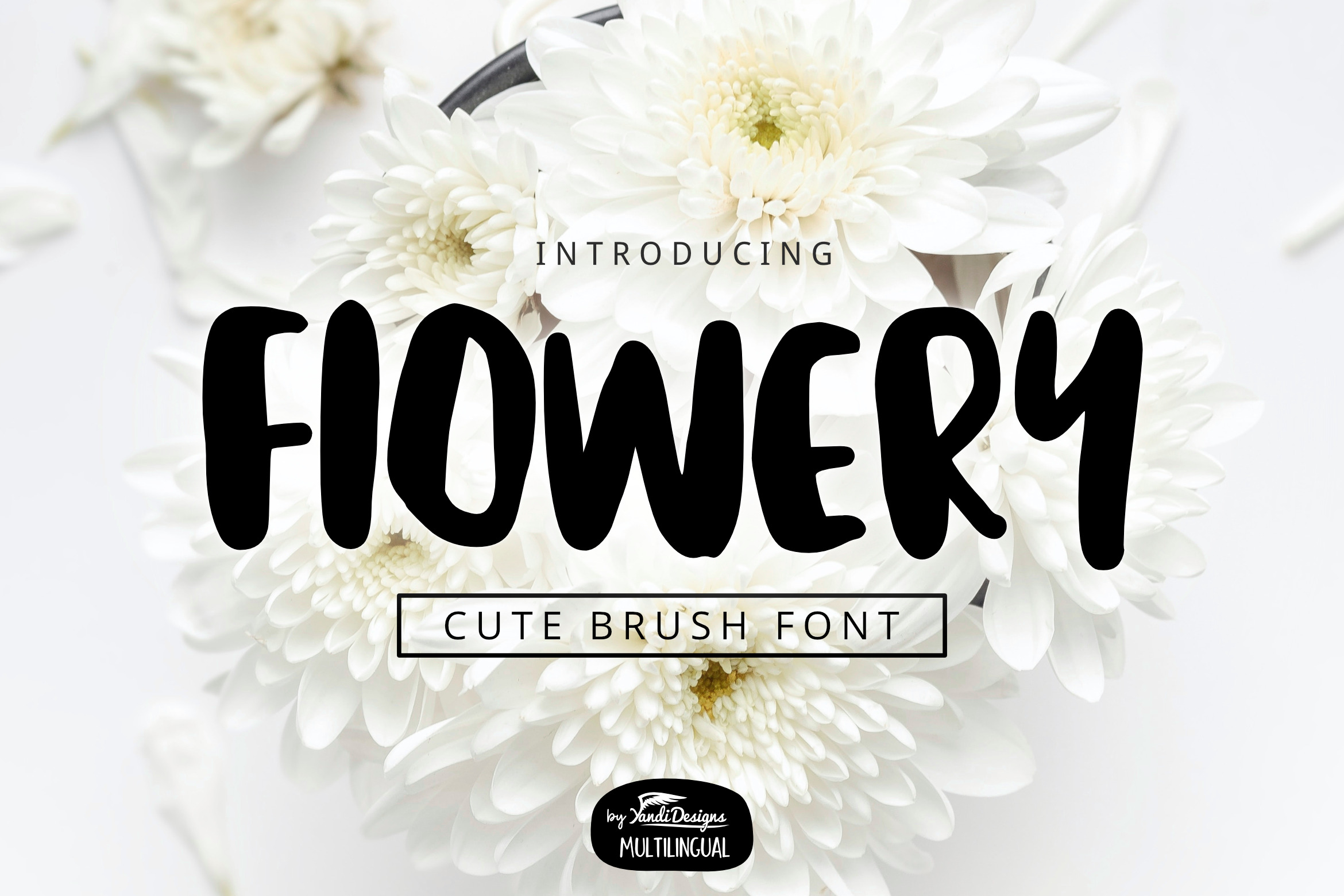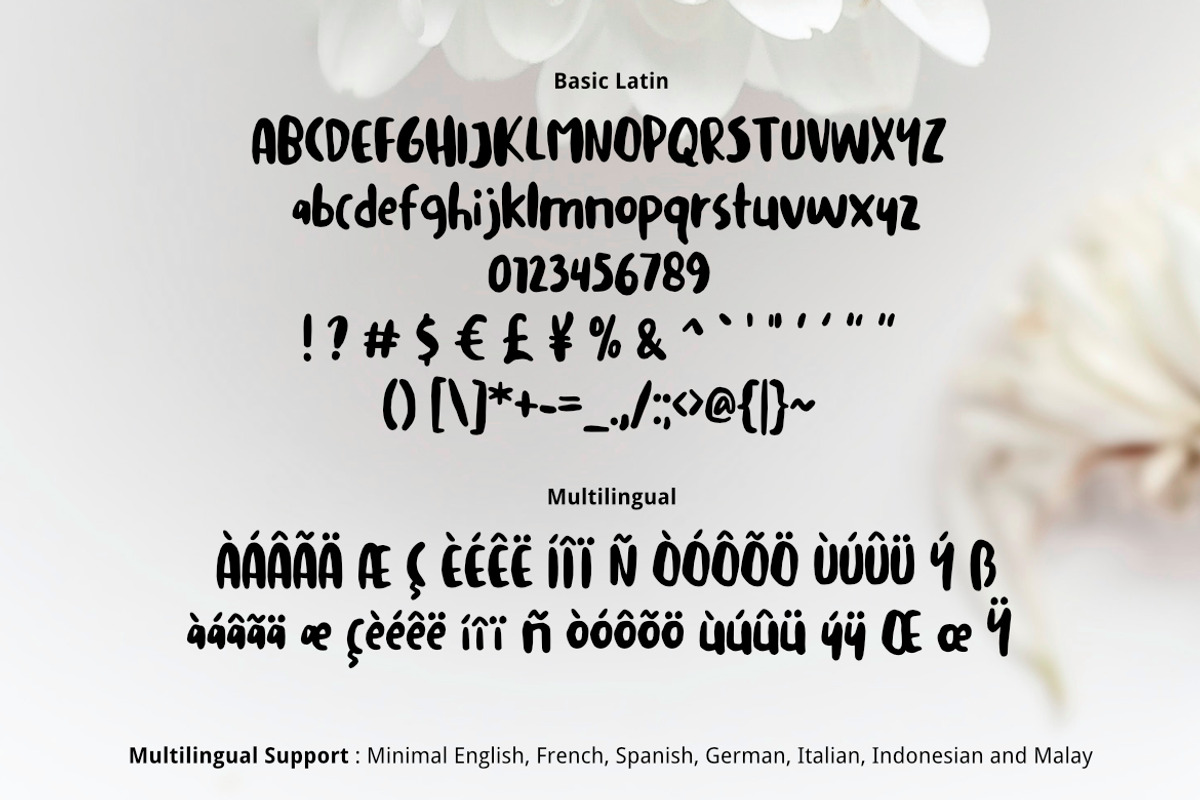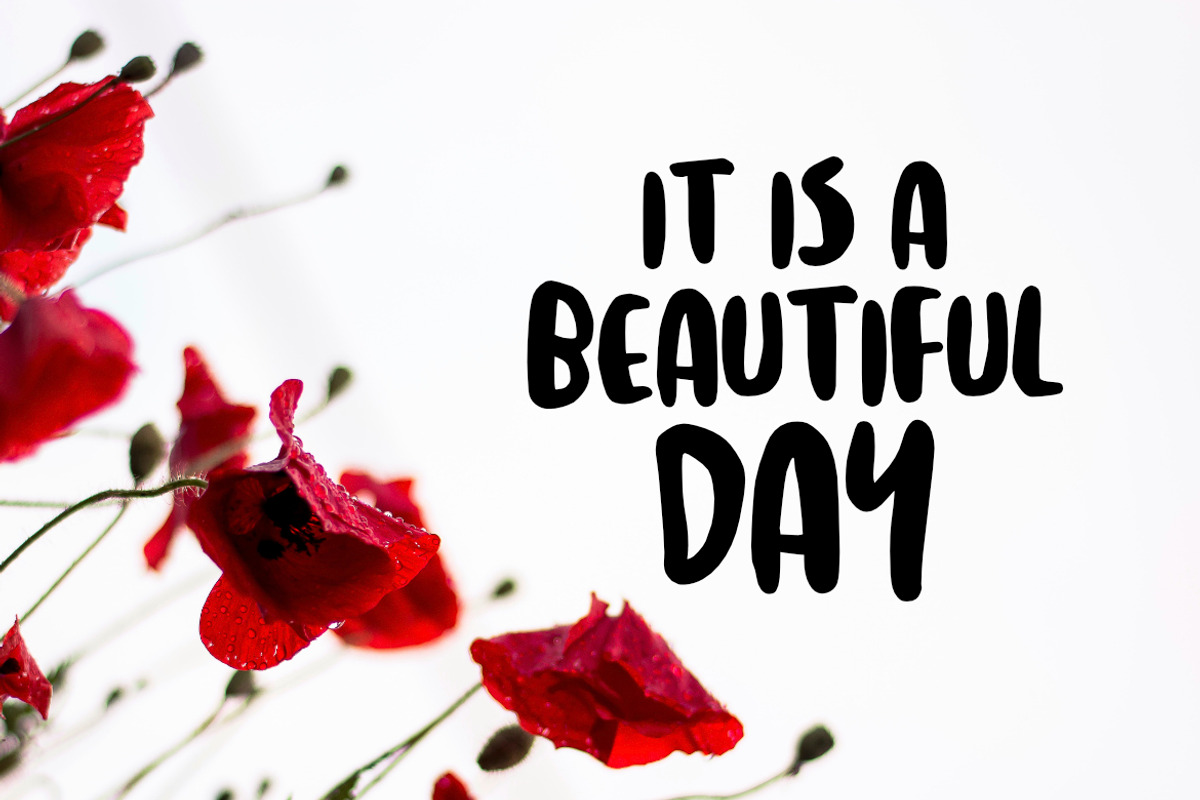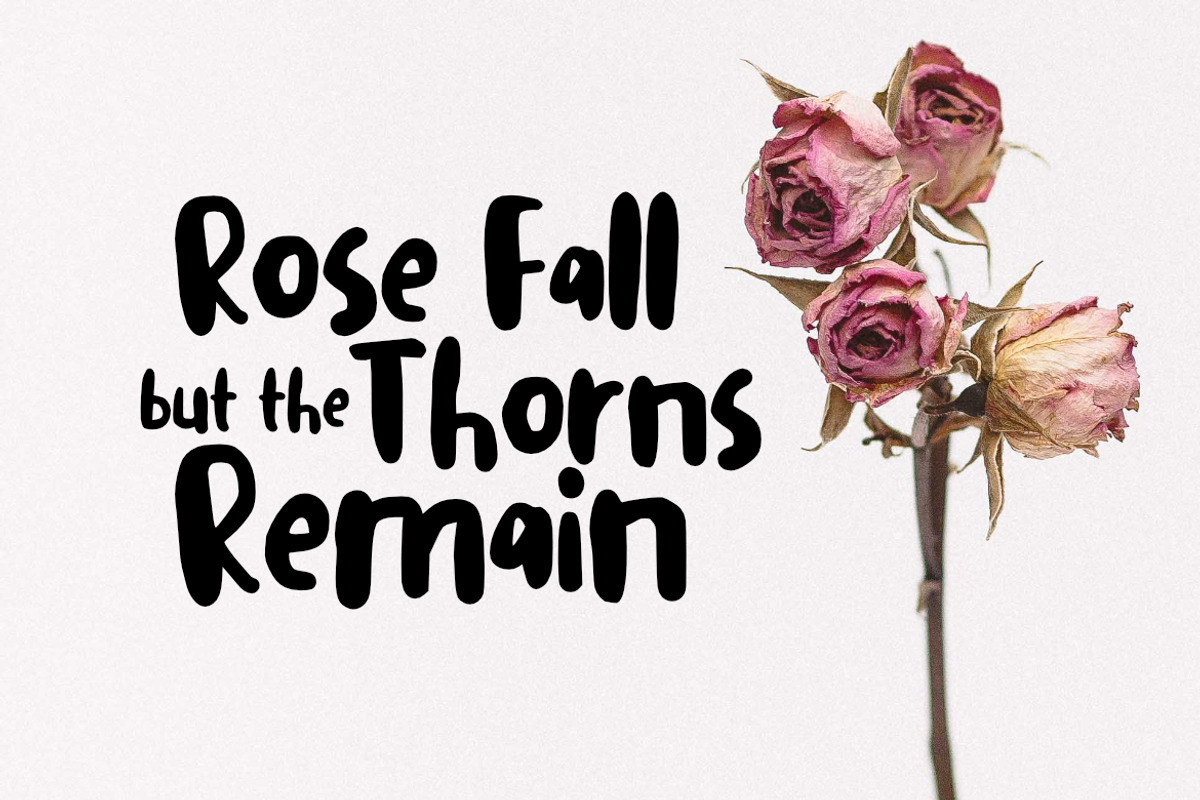
Flowery Brush Font
Flowery Font is lovely cute multipurpose handmade font, suitable for many project children book, quotes, logo , heading , title etc.
Basic Latin (Standard English character , number, symbol) Multilingual Support (minimal English, French, Spanish, German, Italian, Indonesian, Malay)